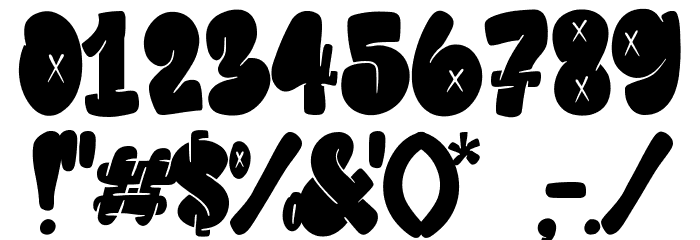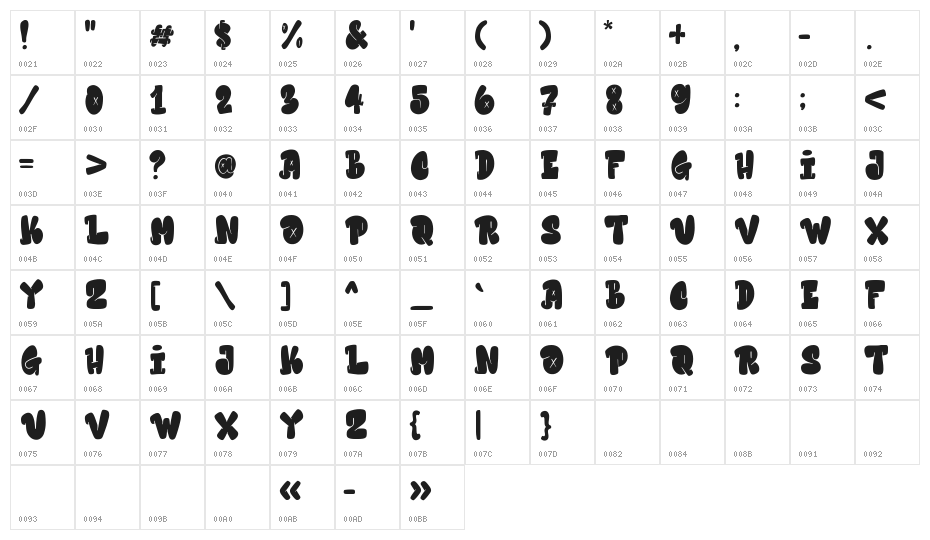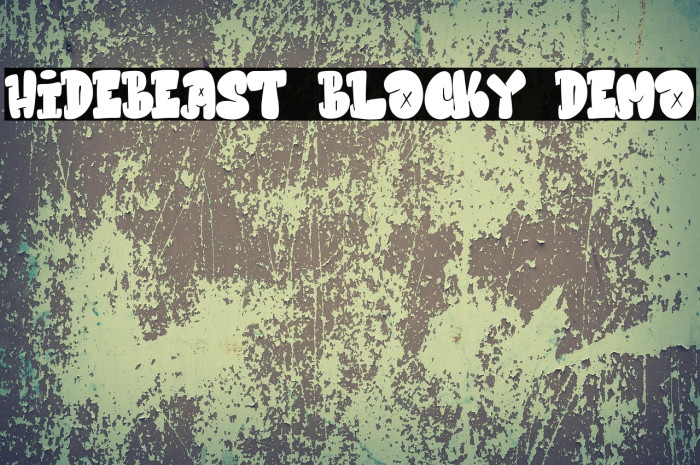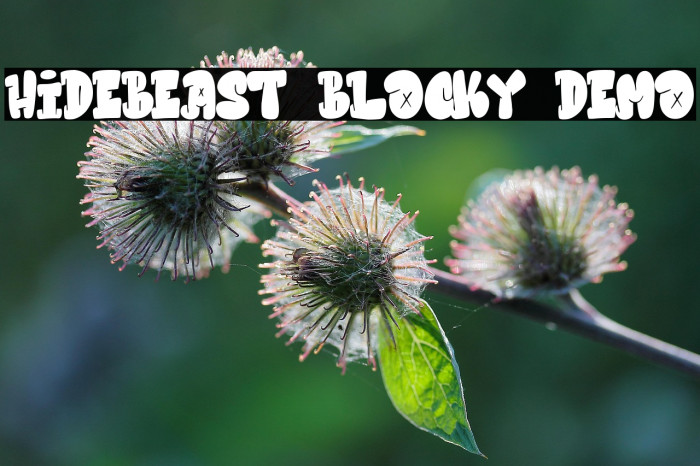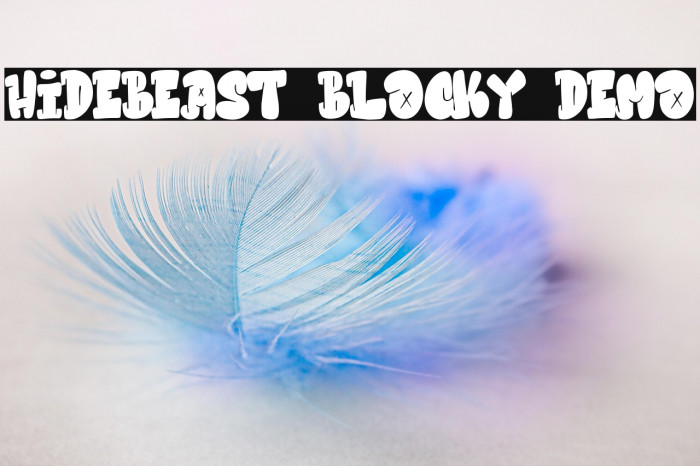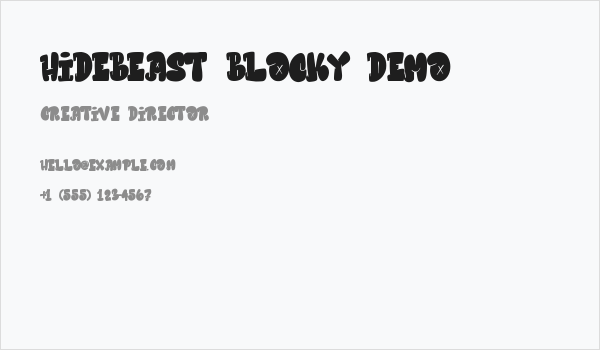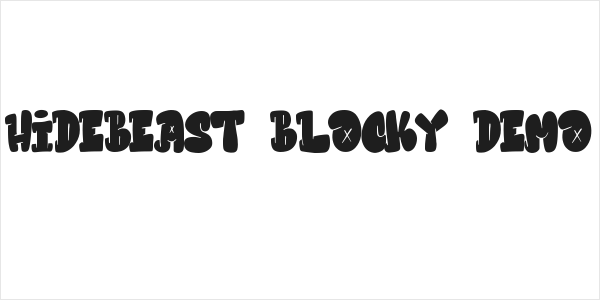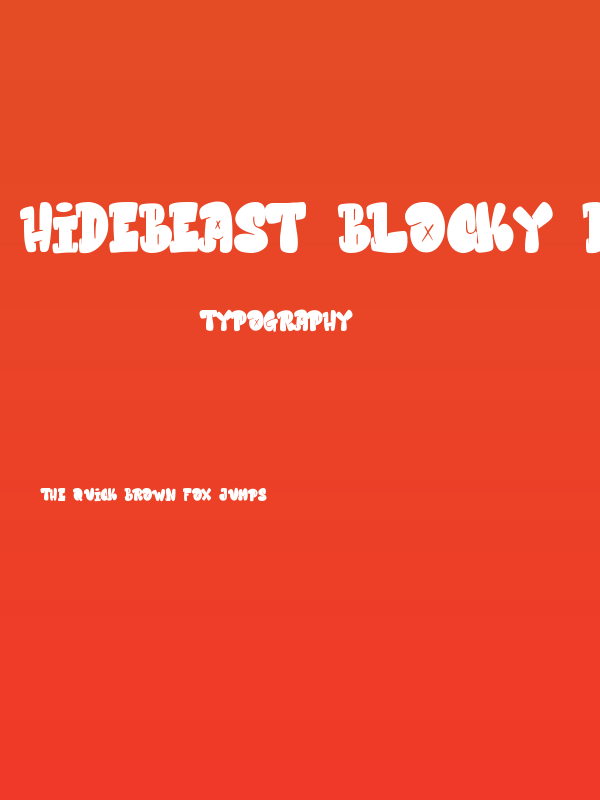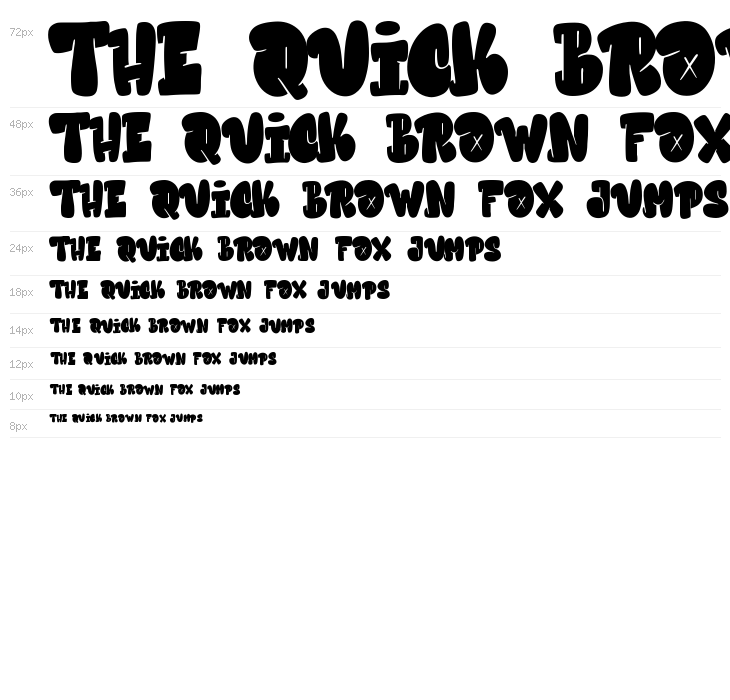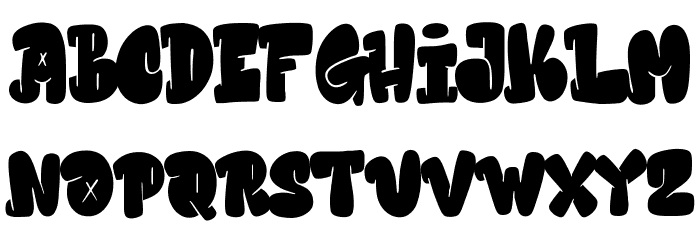
Hidebeast Blocky Demo Font
Hidebeast Blocky Demo Description
This font features a bold and playful design with a blocky, cartoonish style. Each character is heavily weighted, with rounded edges and a slightly irregular form that adds a whimsical touch. The letters are closely spaced, enhancing the chunky appearance. The font includes uppercase and lowercase letters, numbers, and a variety of special characters. Its unique style is characterized by a high contrast between thick and thin strokes, giving it a dynamic and eye-catching look. The overall aesthetic is fun and energetic, making it suitable for creative and informal applications.
| Overall Style | Playful and Energetic |
| Proposed Projects | Ideal for children's books, comic strips, playful branding, and eye-catching posters. |